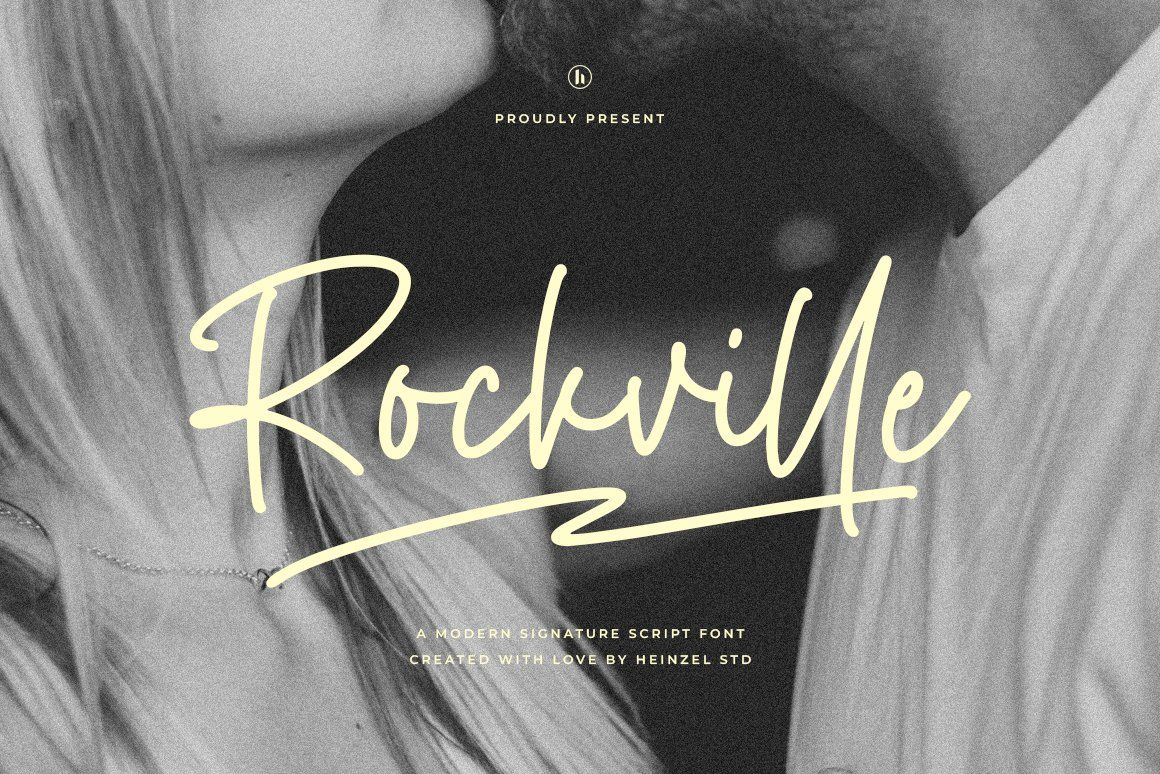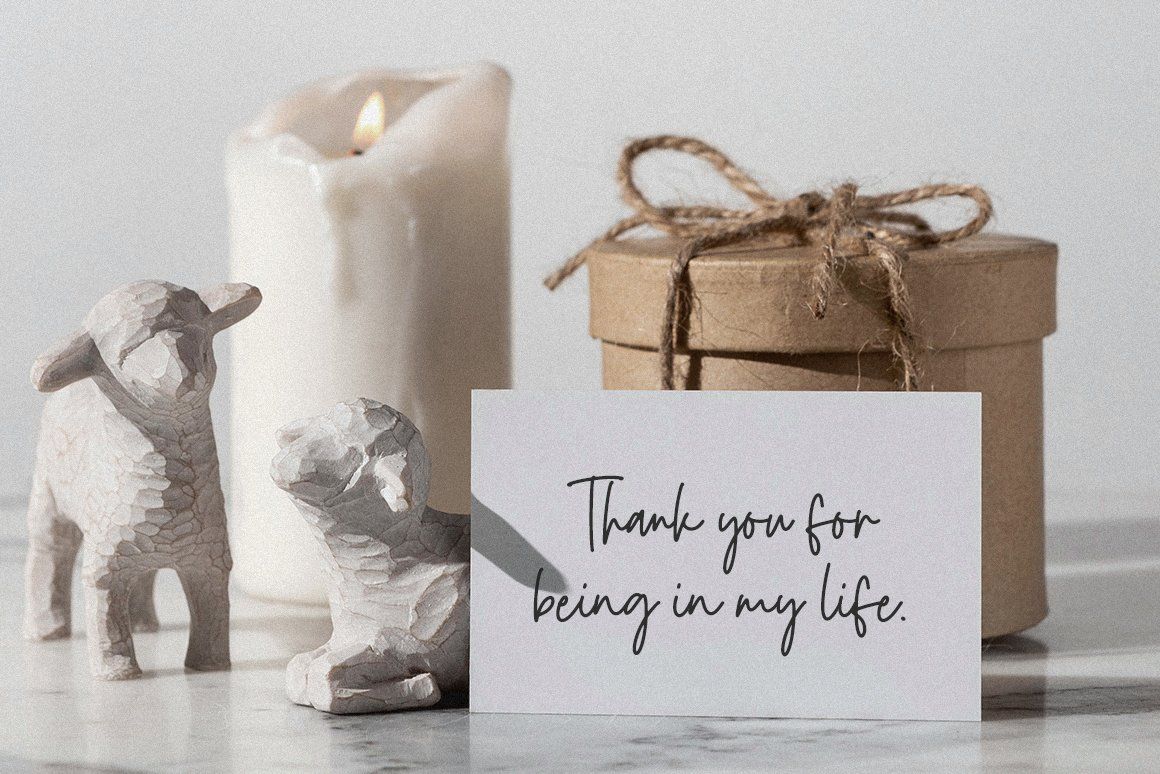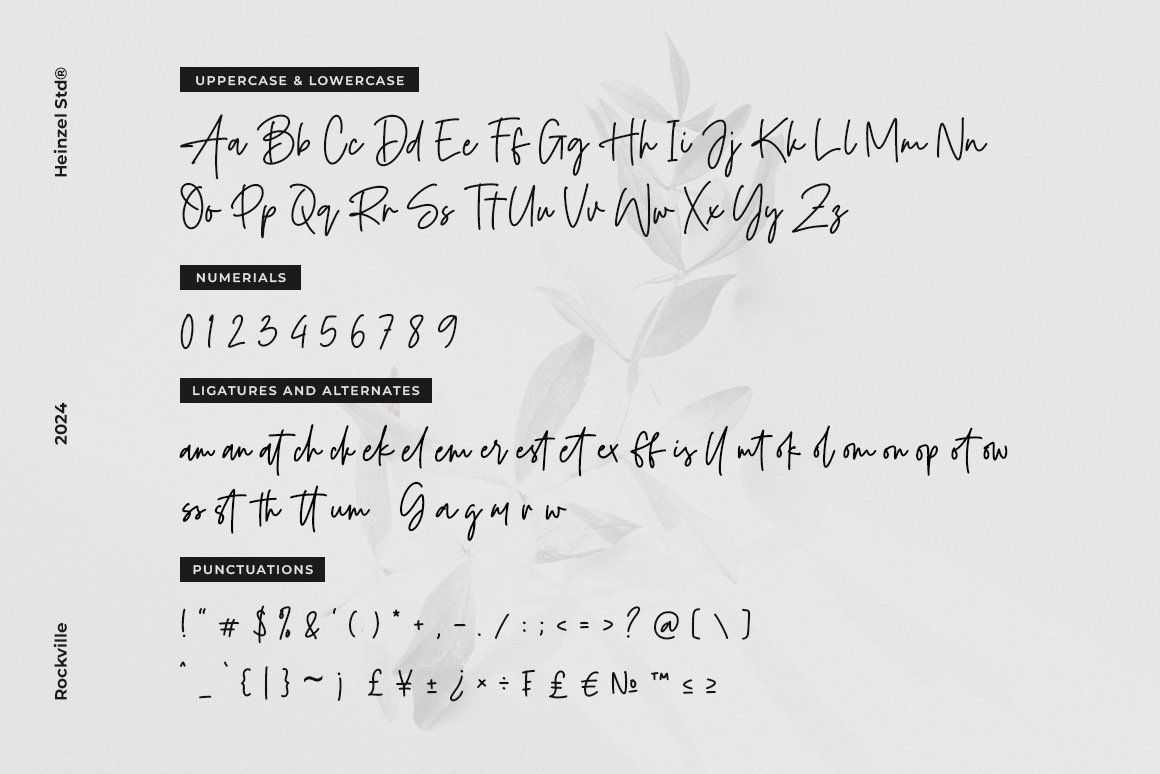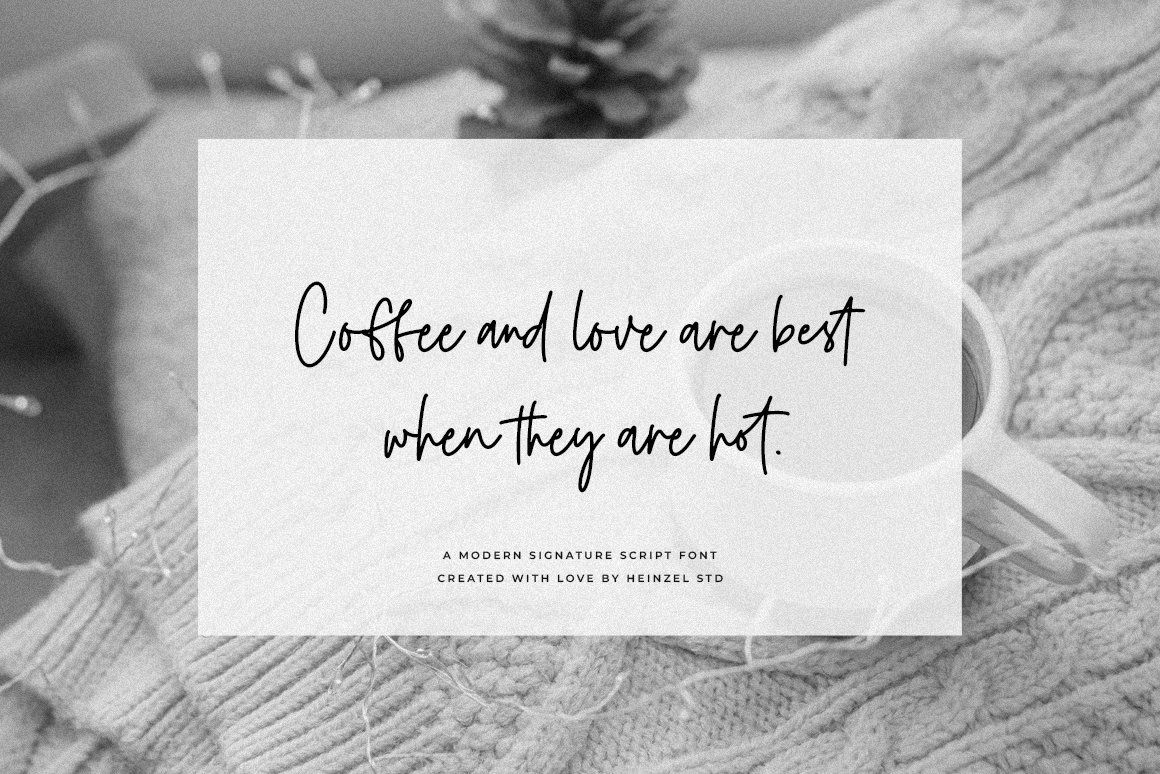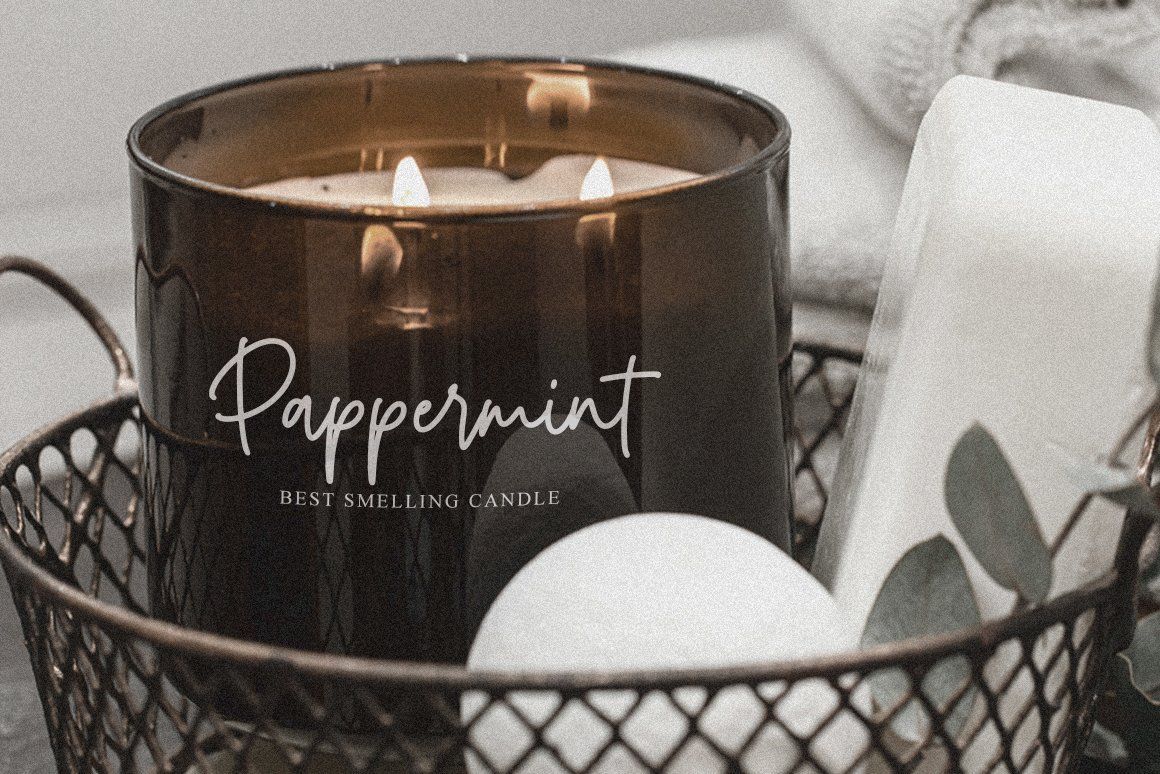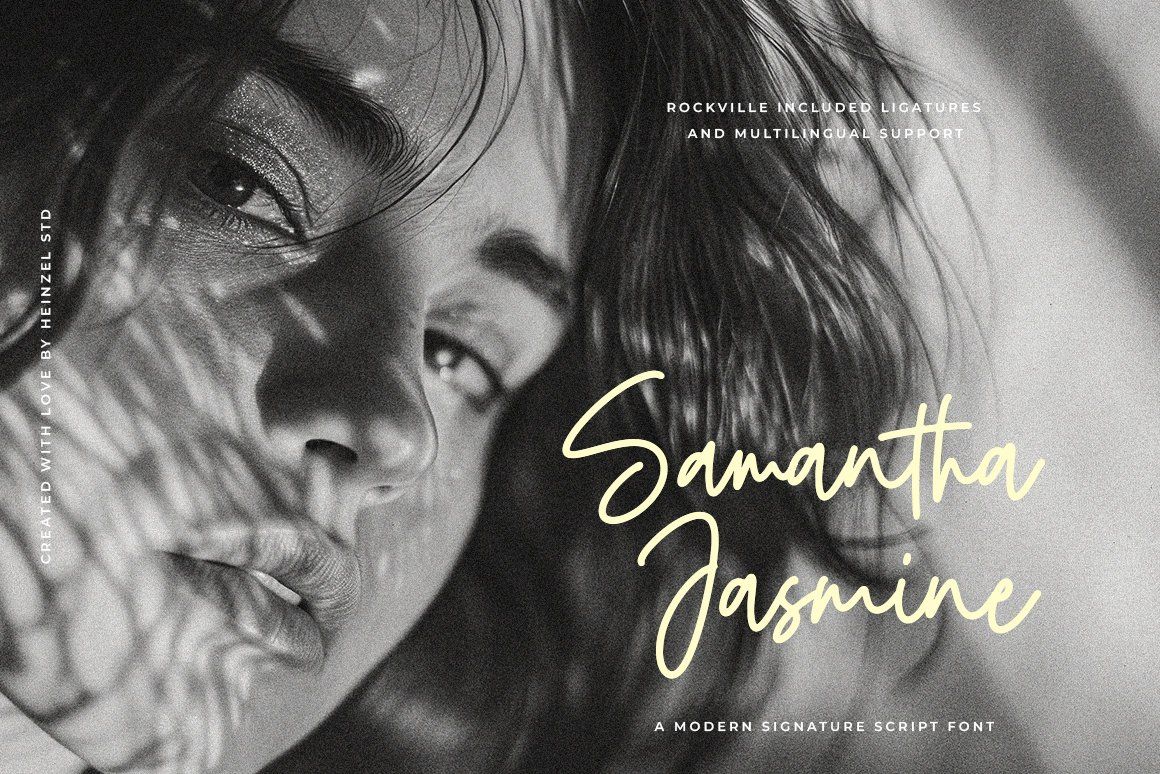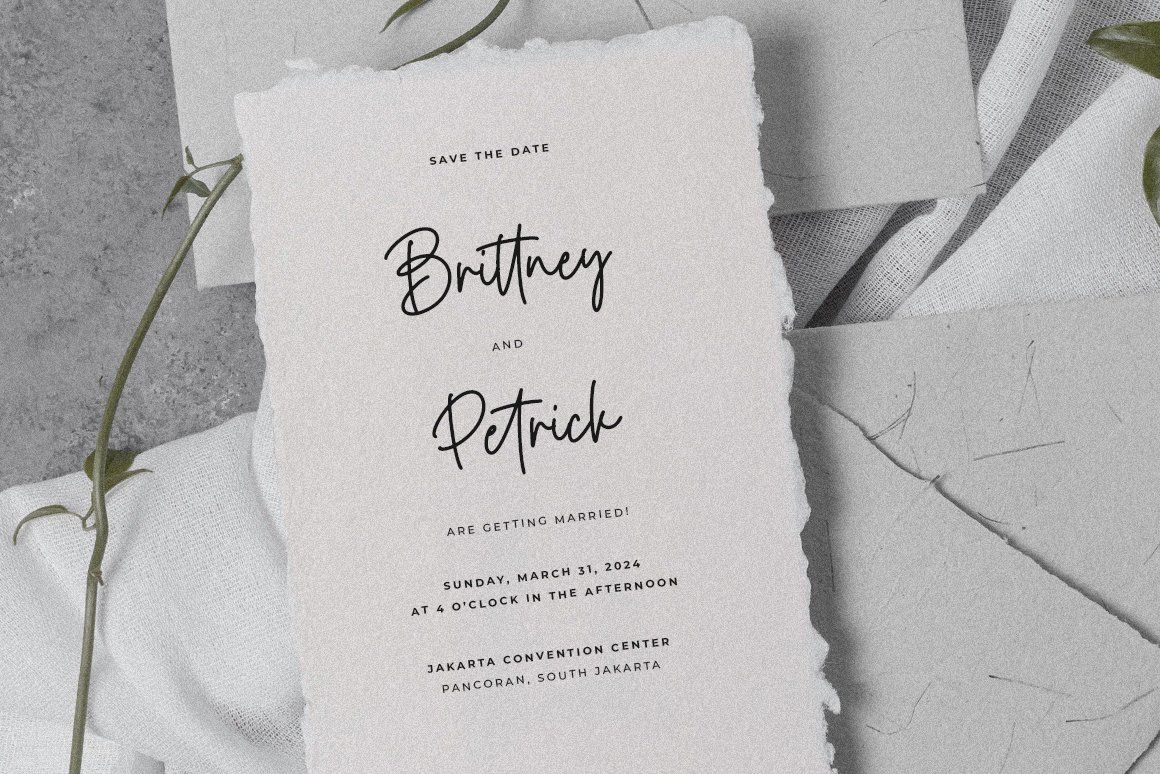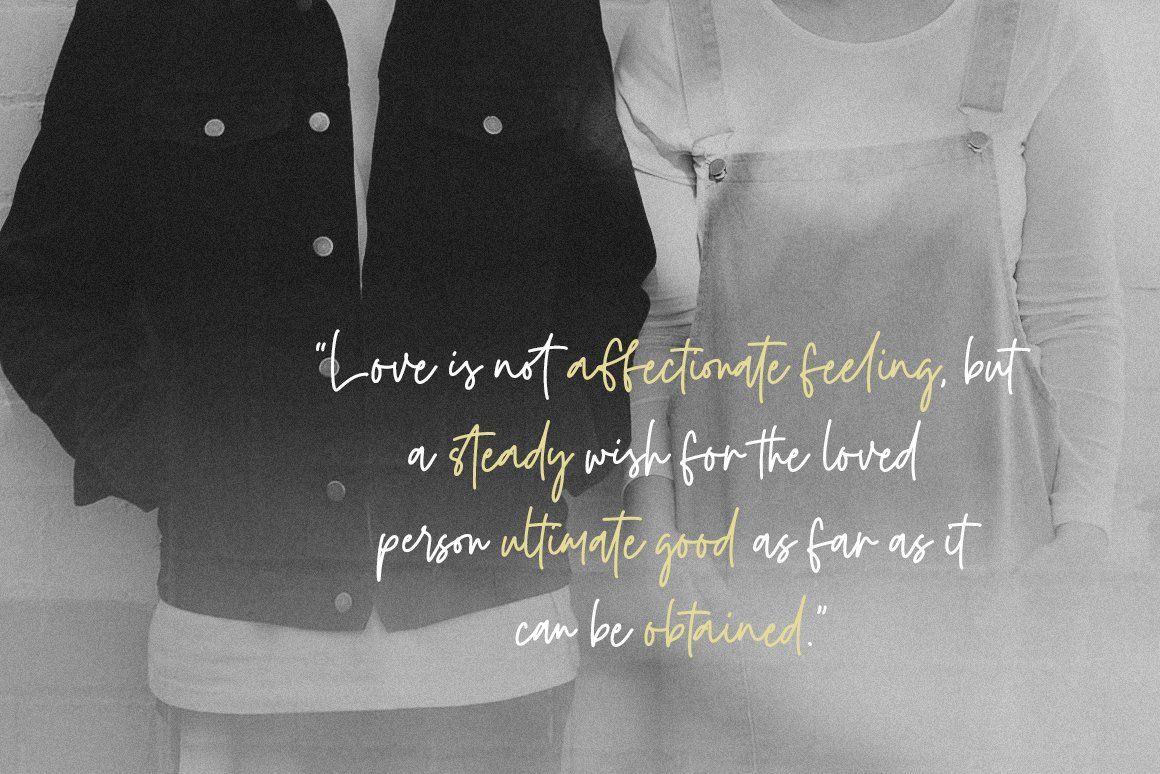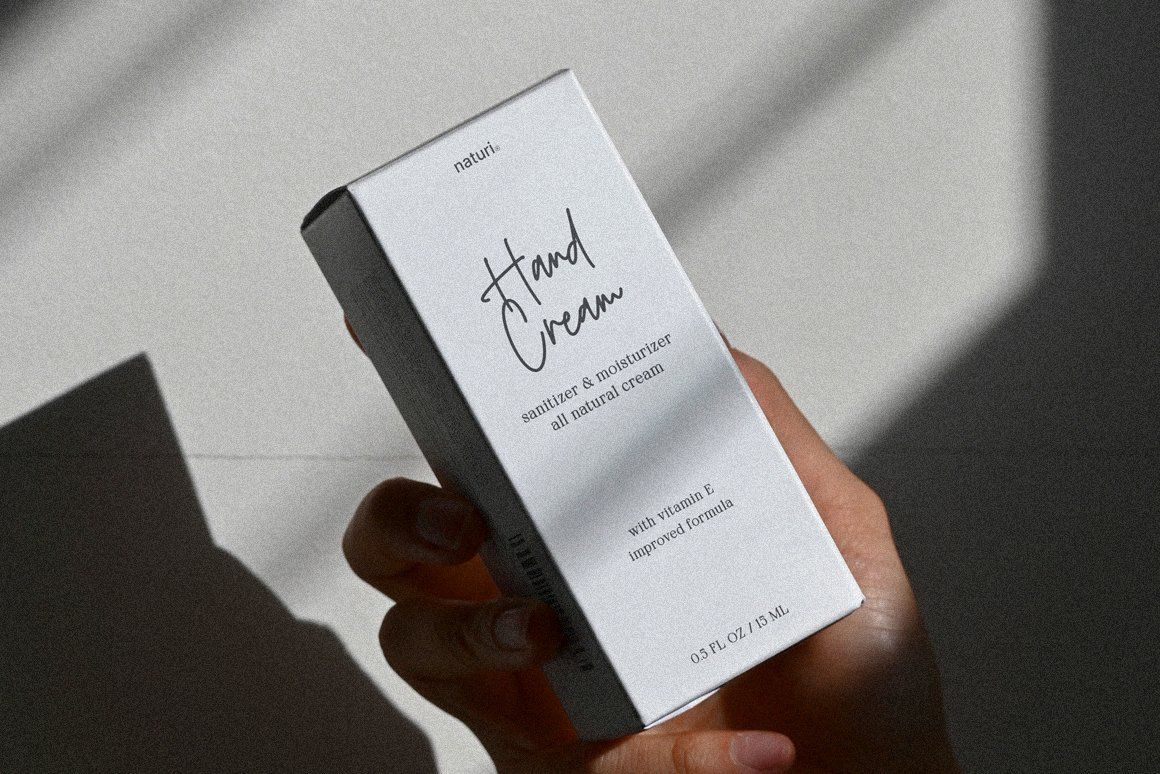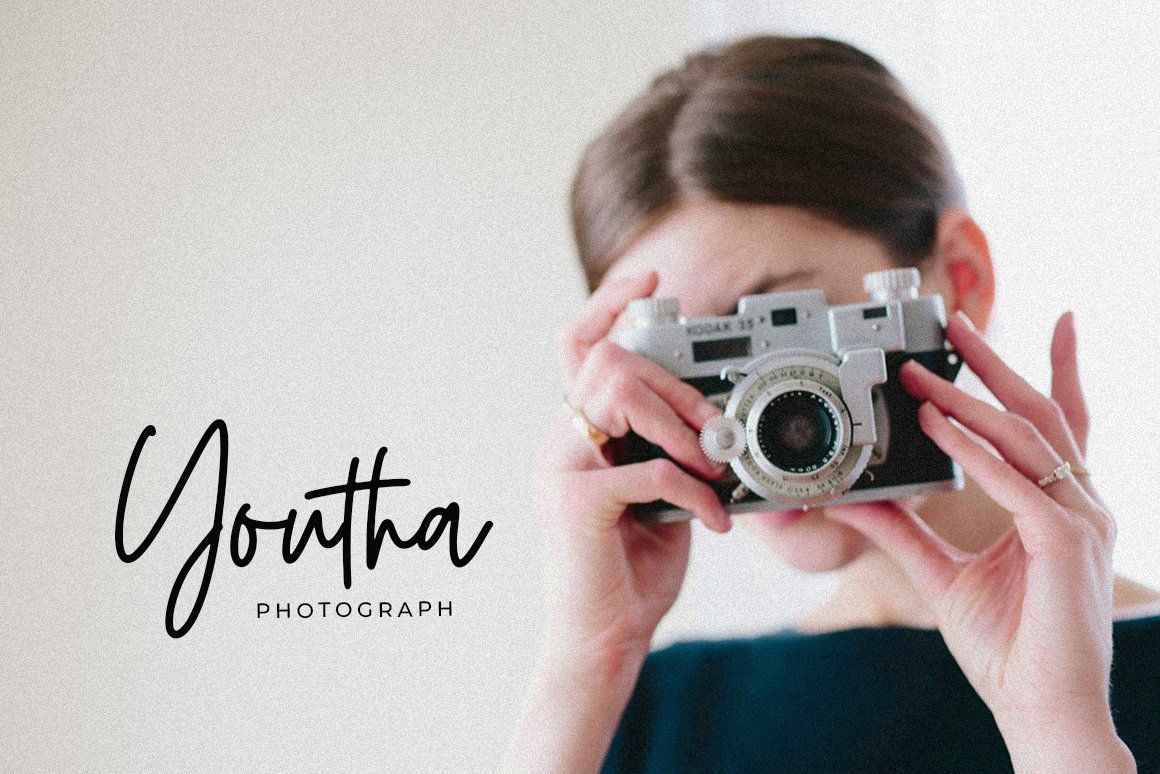
Rockville is a modern signature script font designed to bring a natural, stylish, and personal handwritten touch to your creative projects. With its expressive strokes, flowing letterforms, and authentic signature aesthetic, Rockville is perfect for designs that need a sophisticated yet effortlessly personal feel.
Its elegant handwritten character makes it an excellent choice for logos, branding, wedding invitations, stationery, fashion designs, photography, social media graphics, packaging, product labels, quotes, and personal branding.
Rockville works beautifully as a standout display font, giving your designs a luxurious, artistic, and contemporary signature look.